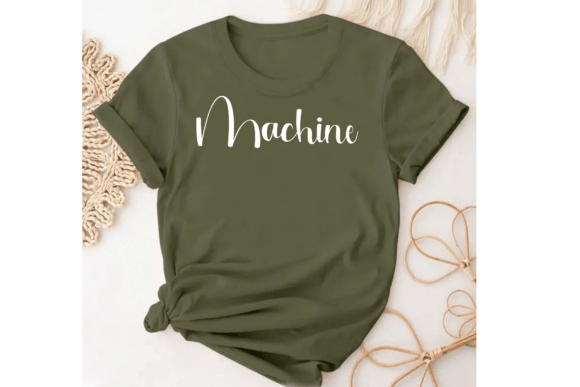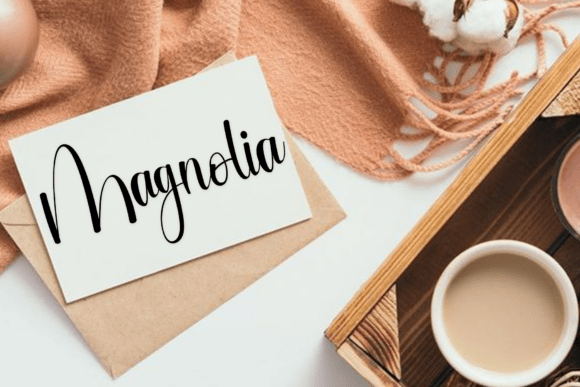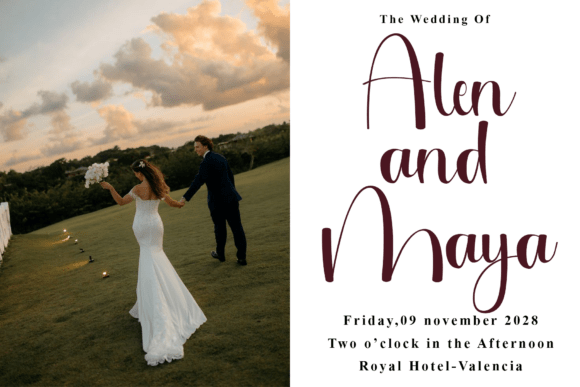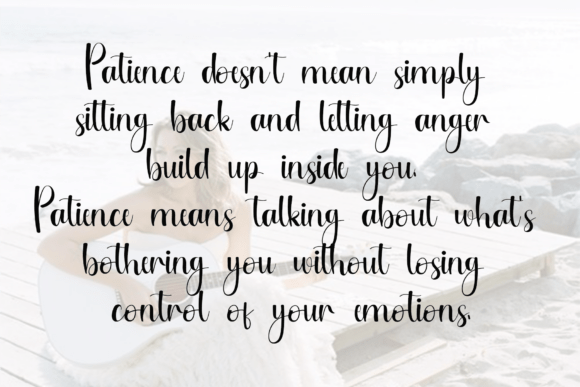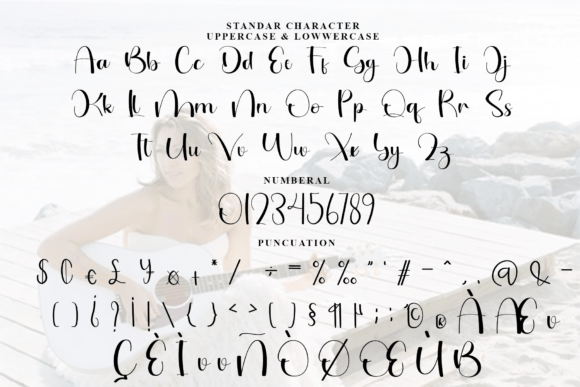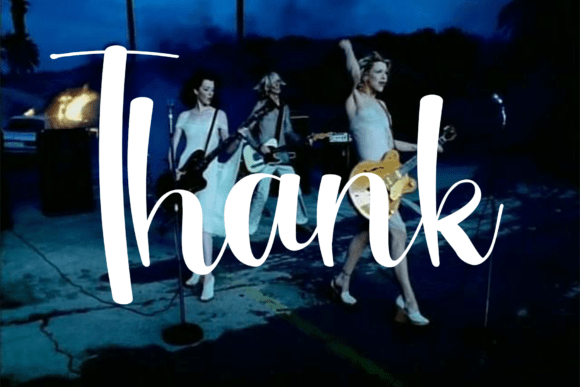
Introduction to Singing Malibu Font
Have you ever stared at a blank page, pen in hand, searching for the perfect font to bring your creative project to life? It’s that moment when the right design resource can make all the difference between a good design and a great one. For designers, the hunt for the perfect font is a constant quest, and it’s a challenge that many face when working on a high-end branding project or a beauty packaging design.
Enter the Singing Malibu Font, a stunning script font that’s set to revolutionize the world of design. This elegant and rhythmic typeface is a game-changer for designers looking to add a touch of sophistication and style to their creative projects. With its unique and professional calligraphic style, the Singing Malibu Font is a must-have for any designer looking to elevate their work.
Key Features of Singing Malibu Font
- Unique, hand-drawn design with a beachy vibe, perfect for creative projects.
- Comes with a transparent background, allowing for seamless integration into various design applications.
- High-quality font with crisp, clear letters and a range of styles to suit different design needs.
- High-resolution font, suitable for use in large-scale designs or print materials.
- Perfect for designers working on projects related to summer, beach, or tropical themes.
Honest Review: Singing Malibu Font
As a designer, I’m always on the lookout for high-quality design resources that can elevate my creative projects. Recently, I stumbled upon the Singing Malibu Font, and I must say it’s been a great addition to my design arsenal. ✨
One of the standout features of the Singing Malibu Font is its ability to be used with a transparent background, giving designers a lot of flexibility when it comes to layering and composition.
Here are some of the things I like about the Singing Malibu Font:
- High-quality design that looks great in a variety of contexts
- Transparent background allows for flexible layering and composition
That being said, there are a few limitations to the Singing Malibu Font:
- May not be suitable for professional print applications due to its casual, handwritten feel
- Not as extensive a character set as some other fonts
Overall, I’m really impressed with the Singing Malibu Font. It’s a great addition to any designer’s toolkit, and I’ve already started using it in a few of my creative projects. ⚠️ Just be aware of its limitations, and use it accordingly.
The Singing Malibu Font is a high-quality, free download design resource ideal for creative projects. Its transparent background makes it versatile for use in various design applications.
To get the most out of the Singing Malibu Font, experiment with different font sizes, colors, and combinations. This will help you create unique and visually appealing designs.
The Singing Malibu Font is suitable for various design applications, including:
- Infographics and data visualizations
- Blog and social media graphics